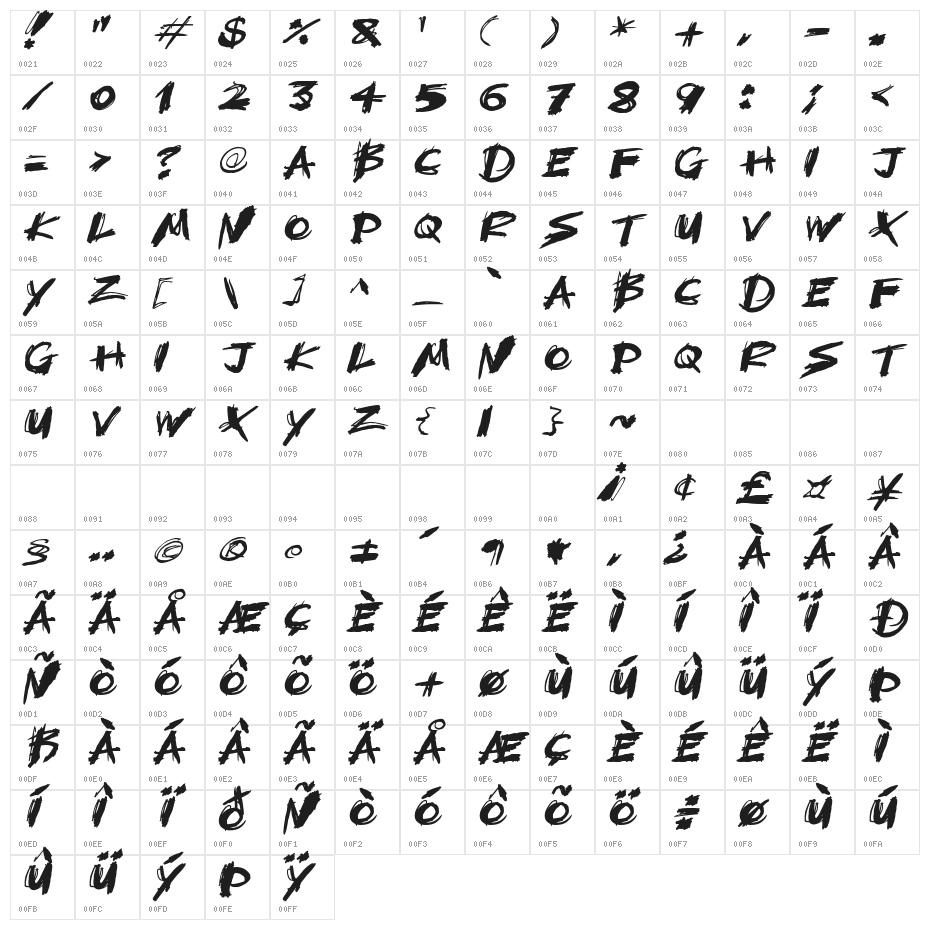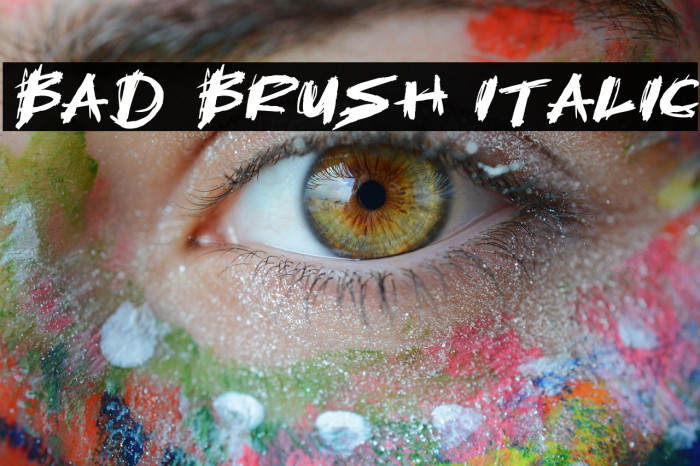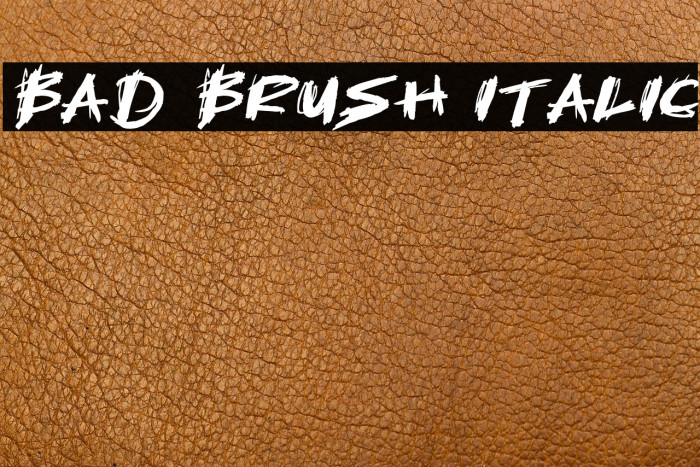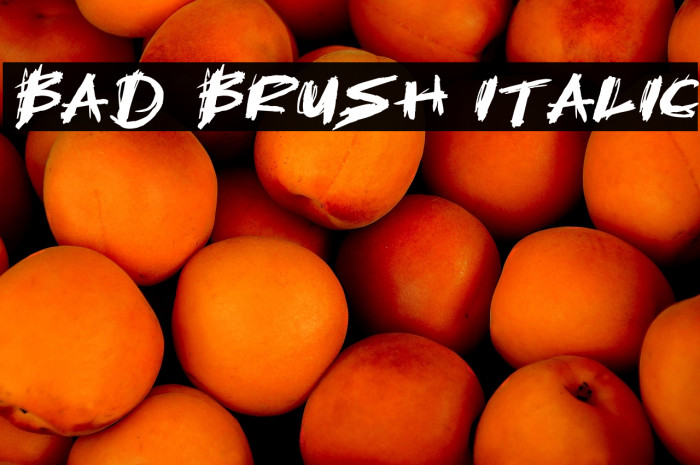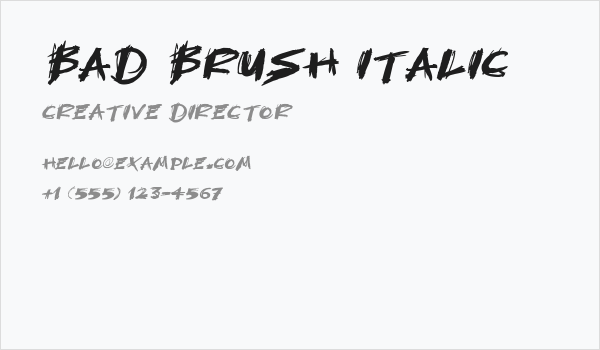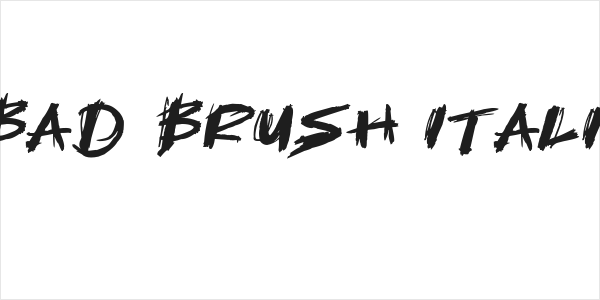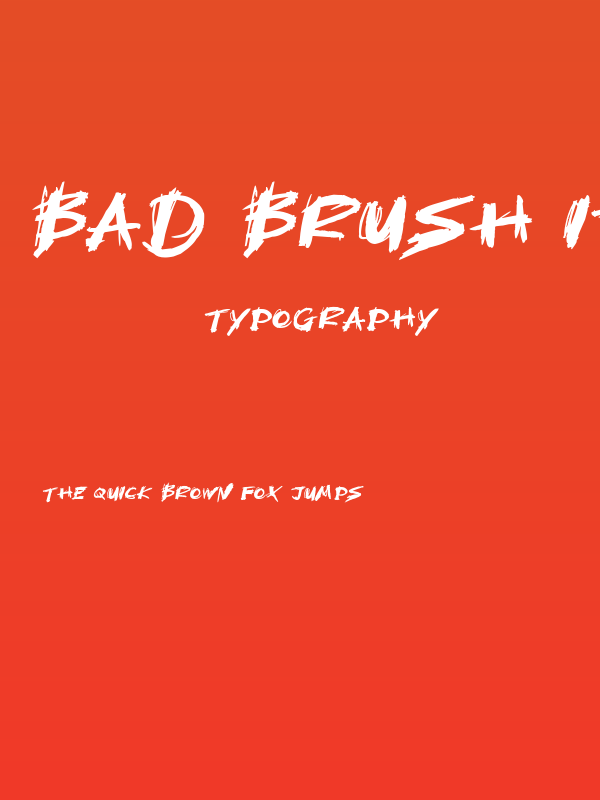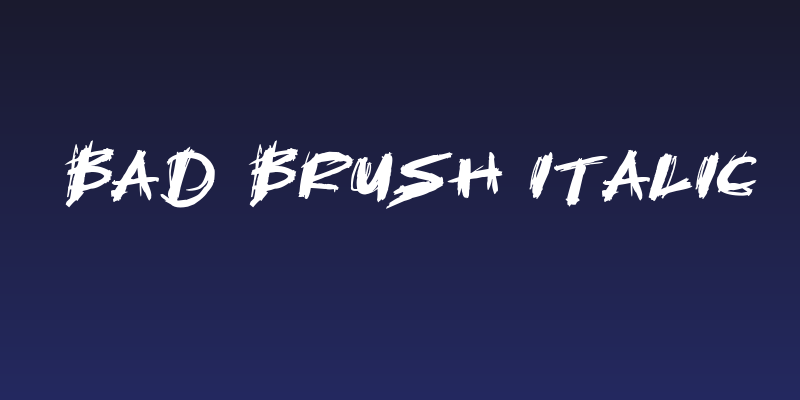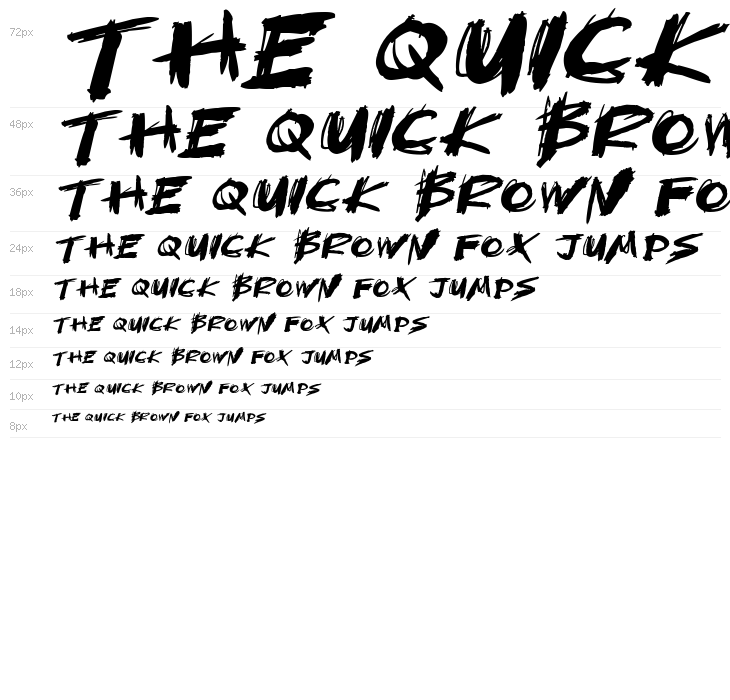
Bad Brush Italic Font
Bad Brush Italic Description
This font features a bold, energetic brush style that exudes a sense of movement and dynamism. The strokes are thick and uneven, giving it a raw, hand-painted appearance. The letters are slightly slanted, enhancing the italicized effect and adding to the overall sense of speed and urgency. The uppercase and lowercase characters maintain a consistent style, with jagged edges and varying stroke widths that contribute to its rugged charm. The numbers and special characters follow the same design principles, ensuring a cohesive look across all elements. This font is ideal for projects that require a bold, artistic touch.